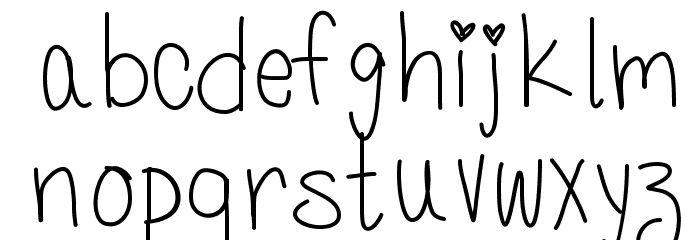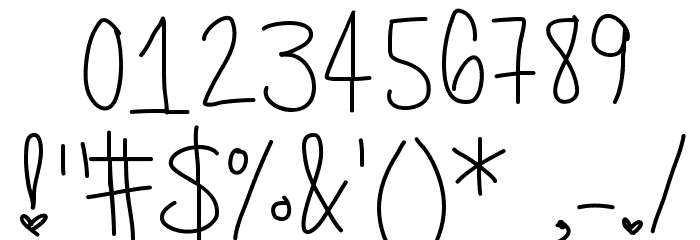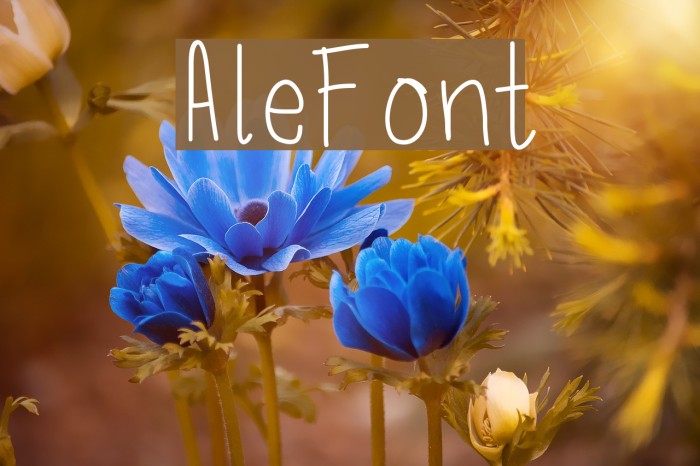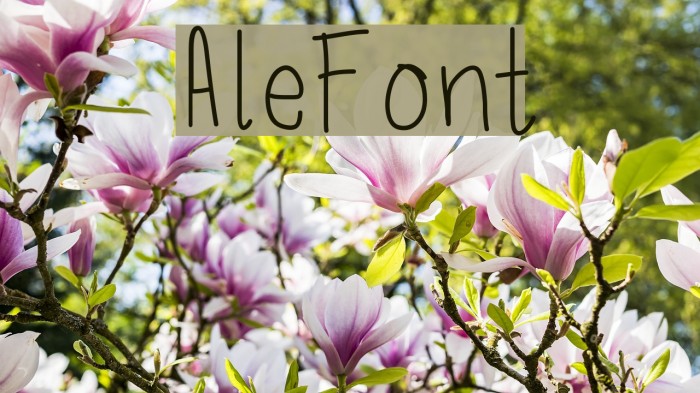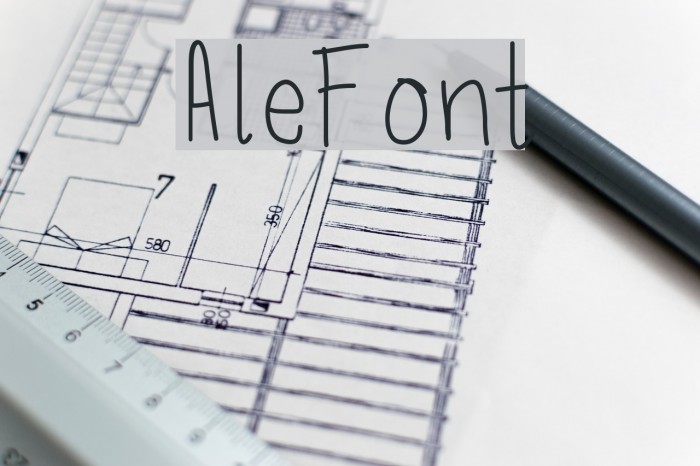
AleFont Font
This playful and whimsical font features a handwritten style with a casual, friendly appearance. The characters are slightly irregular, adding a personal touch to the text. Uppercase and lowercase letters are distinct, with some lowercase letters incorporating unique elements like small hearts. The numerals are consistent with the overall style, maintaining the playful theme. Special characters are included, each designed to match the font's informal and approachable aesthetic. This font is perfect for projects that require a touch of personality and creativity.
A playful, handwritten font with a whimsical and friendly style.
- Proposed Projects: Ideal for greeting cards, children's books, playful branding, and personal projects that require a touch of whimsy.
- Overall Style: Playful, Whimsical
- Use Case: Greeting cards, Children's books, Playful branding